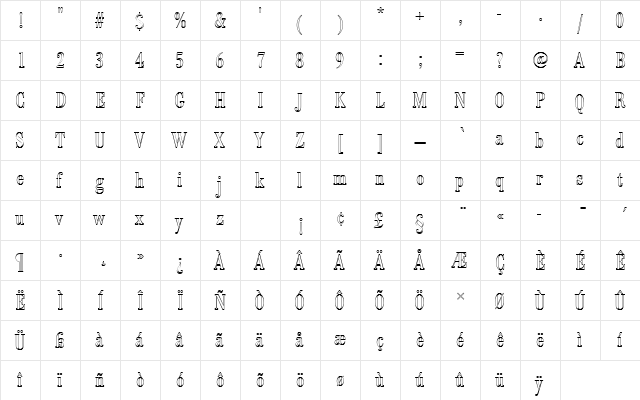
BodoniAntTRegConOu1 Regular
Design Context for BodoniAntTRegConOu1 Typeface
BodoniAntTRegConOu1 offers clean, dependable letterforms without strong stylistic allegiance, making it a practical choice for designers who need flexibility.